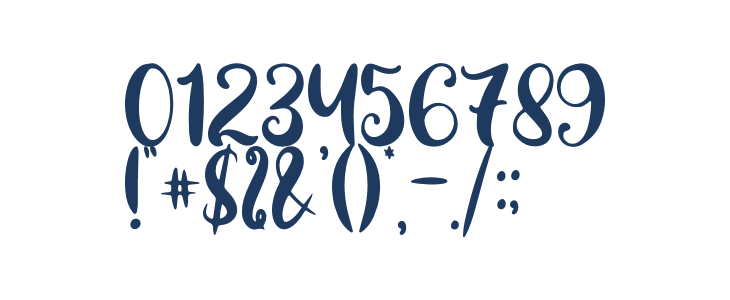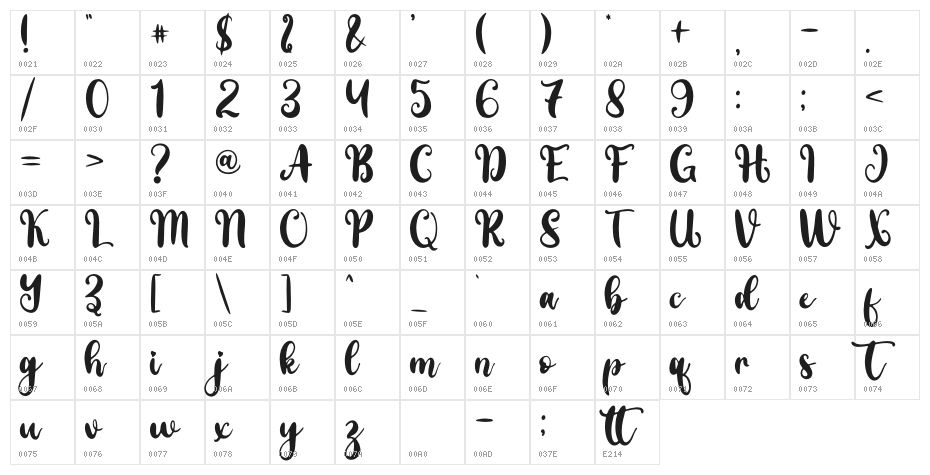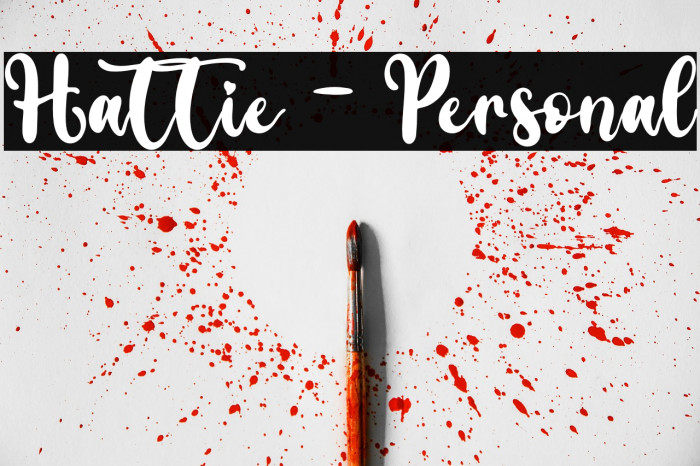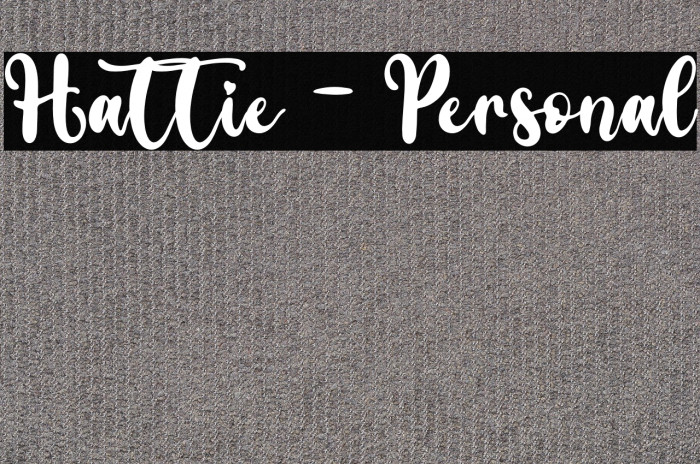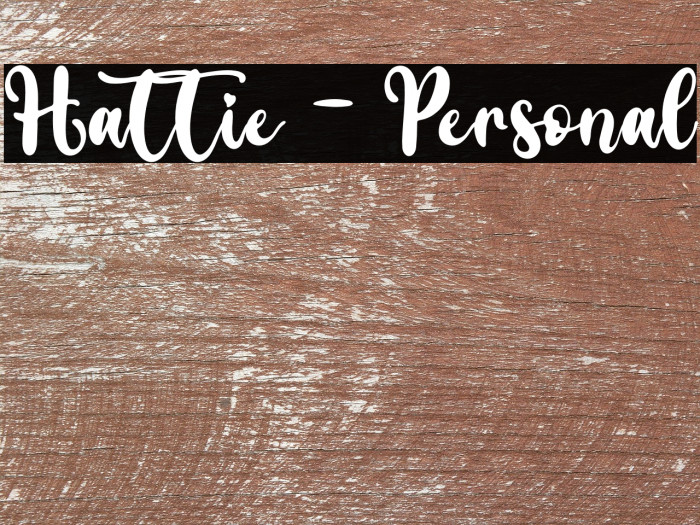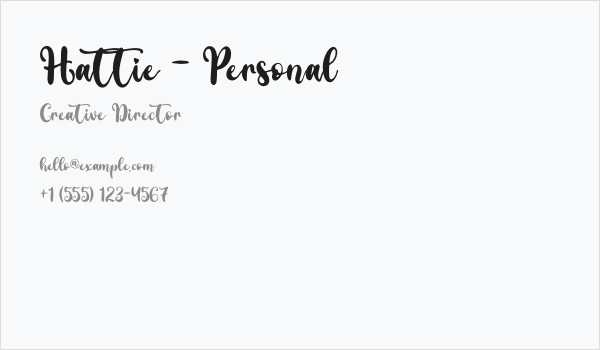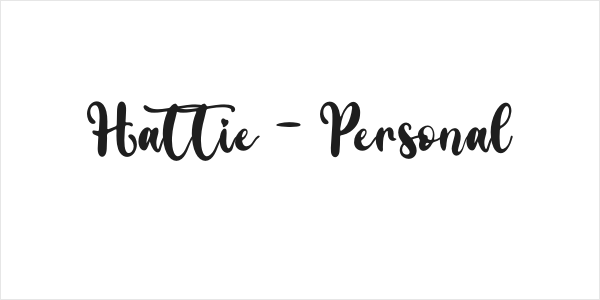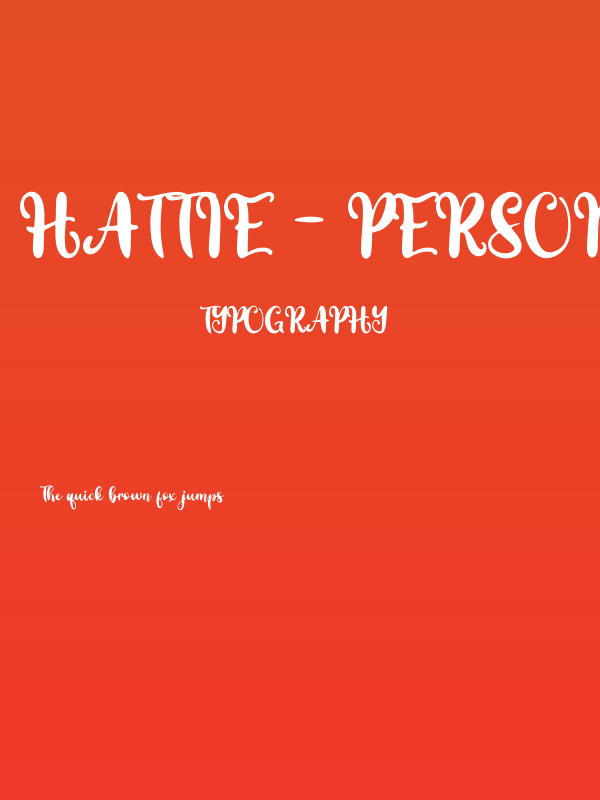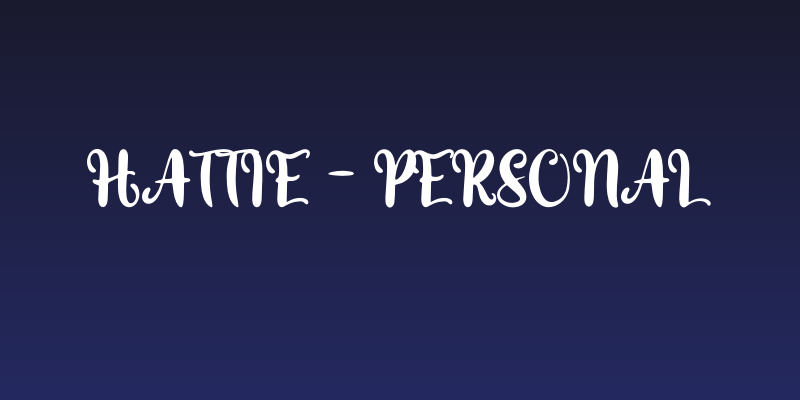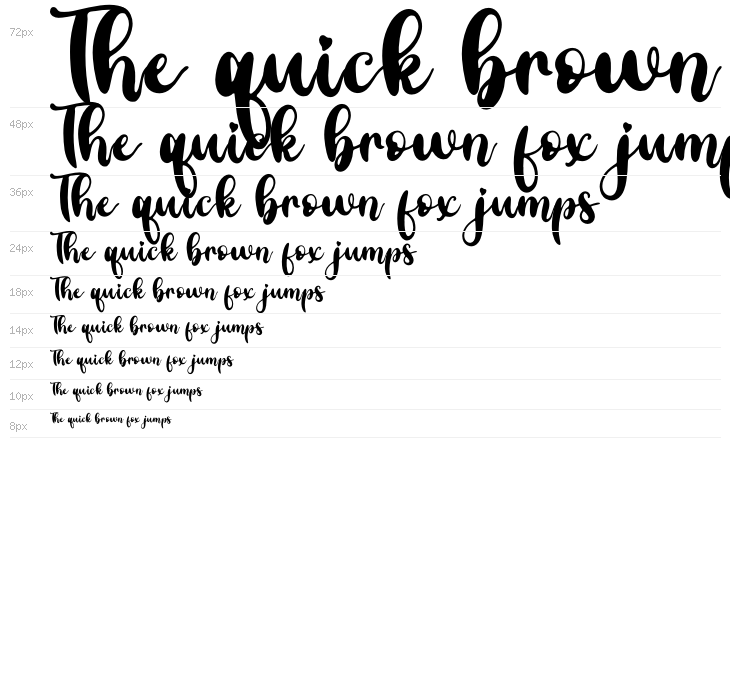
Hattie - Personal Font
Hattie - Personal Description
This font features a bold and flowing script style, characterized by its elegant and curvaceous letterforms. The uppercase letters are ornate, with exaggerated loops and swashes that give a sense of movement and fluidity. The lowercase letters maintain a consistent style, with smooth connections and rounded edges, enhancing readability while retaining a decorative flair. Numbers and special characters are crafted with the same attention to detail, ensuring a cohesive look across all elements. This font exudes a sense of sophistication and charm, making it suitable for a variety of creative applications.